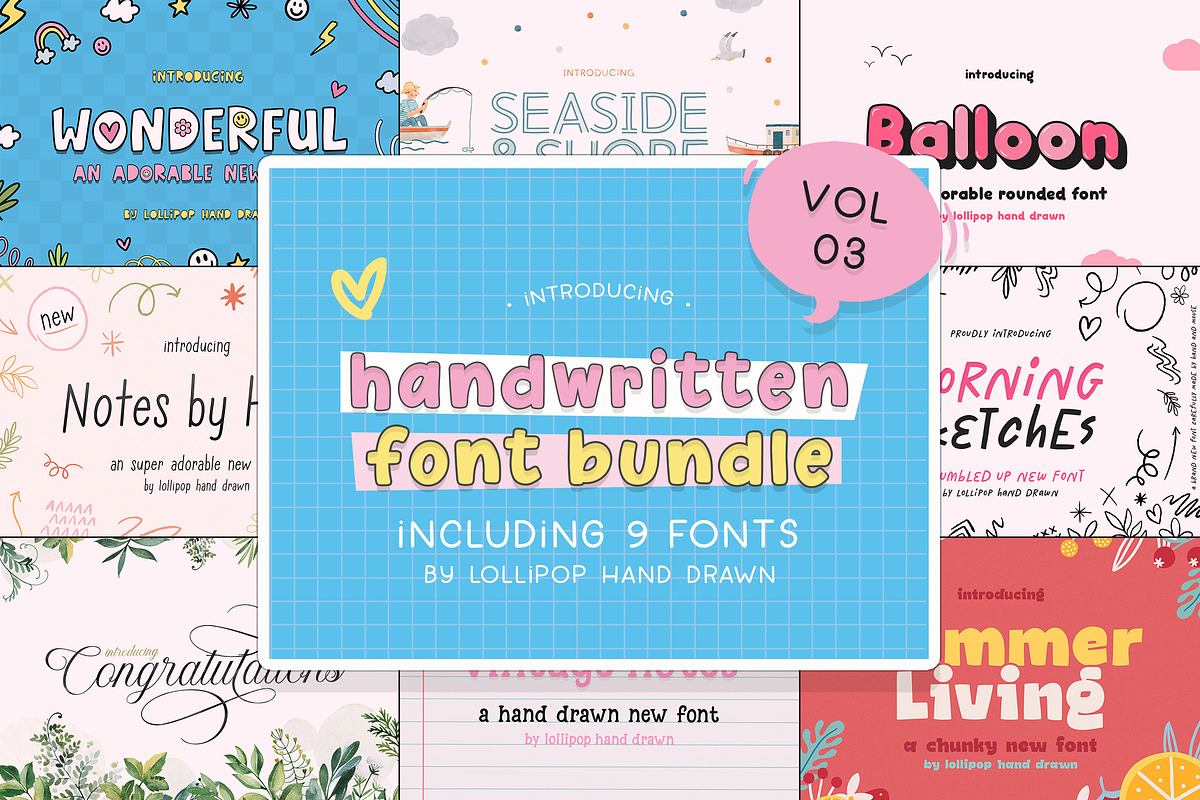
Handwritten Font Bundle - Vol 03 Free Download
Handwritten Font Bundle - Vol 03 Free Download is a charming and diverse collection of hand-drawn typefaces perfect for adding a personal, authentic touch to any creative project. Featuring a wide range of handwriting styles—from casual and quirky to elegant and flowing—this bundle is ideal for branding, social media graphics, wedding stationery, product packaging, and digital journaling.
Each font in the Handwritten Font Bundle - Vol 03 Free Download is crafted with personality, capturing the unique flair of real penmanship. Whether you're looking to create heartfelt quotes, stylish headers, or custom logos, this bundle offers the variety and flexibility you need to bring your vision to life.